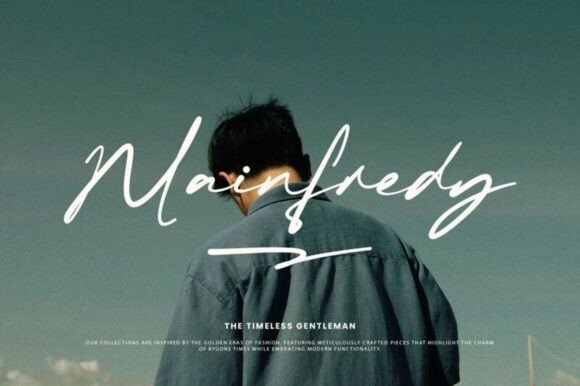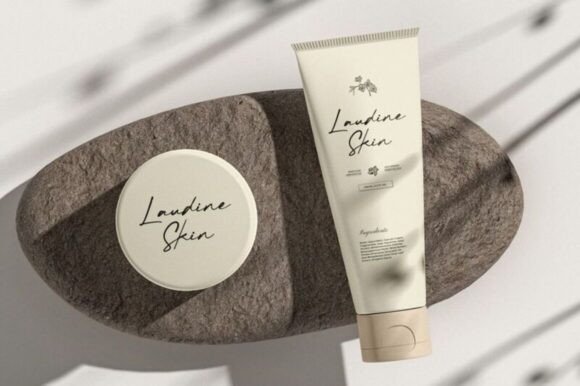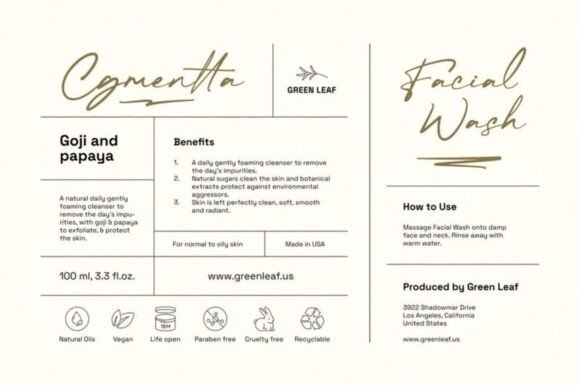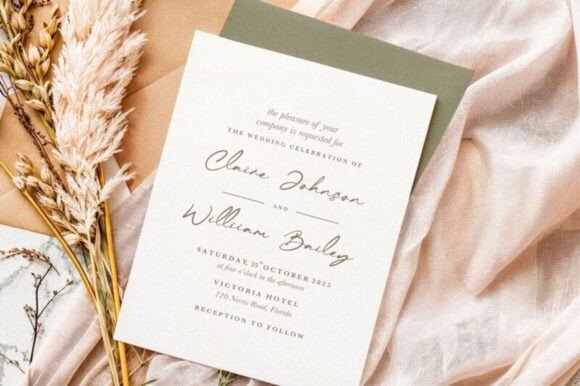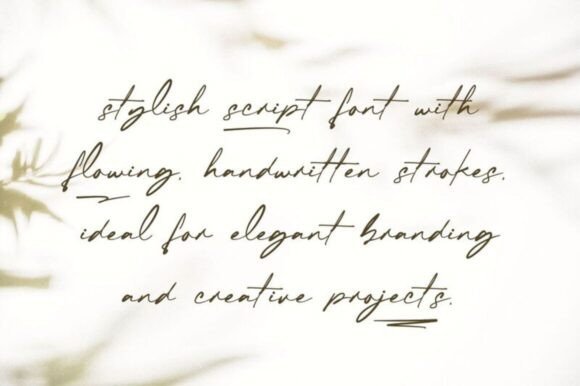
Introducing Checkbold Font: Elevate Your Designs with a Modern Handwritten Style
In the world of typography, fonts play a crucial role in making or breaking a design. A well-chosen font can instantly elevate your brand, product, or website, making it more engaging and memorable for your audience. If you’re on the hunt for a font that exudes modernity, smoothness, and an organic feel, look no further than Checkbold Font. This stunning handwritten font is about to revolutionize the way you approach your designs, offering a versatile and attention-grabbing solution for creatives and businesses alike.
What Makes Checkbold Font Stand Out?
Checkbold Font boasts a smooth, modern, and organic design that is sure to capture everyone’s attention. Its handwritten style gives it a personal and approachable feel, making it perfect for brands and products that want to appear friendly and relatable. Whether you’re working on a logo, brand identity, product packaging, or website design, Checkbold Font is an excellent choice.
One of the standout features of Checkbold Font is its PUA (Private Use Area) encoding. This means that you can easily access all the glyphs and swashes, giving you a wide range of creative possibilities. With PUA encoding, you can unlock the full potential of the font, experimenting with different combinations to create a unique look that sets your design apart.
Endless Design Possibilities with Checkbold Font
The versatility of Checkbold Font is one of its most significant advantages. Its modern and organic design makes it suitable for a wide range of applications, from:
- Logos and Brand Identity: Create a memorable and impactful logo that reflects your brand’s personality and values.
- Product Packaging: Add a touch of elegance and sophistication to your product packaging, making it stand out on store shelves.
- Websites and Blogs: Enhance your website or blog’s typography, making it more engaging and user-friendly.
- Social Media Graphics: Create stunning social media graphics, including posts, stories, and ads, that grab attention and drive engagement.
- Stationery and Print Materials: Elevate your stationery, business cards, brochures, and other print materials with a modern and stylish font.
Why Choose Checkbold Font?
With so many fonts available, why should you choose Checkbold Font for your next design project? Here are just a few compelling reasons:
- Unique and Memorable: Checkbold Font’s modern and organic design ensures that your designs will stand out from the crowd.
- Ease of Use: The font’s PUA encoding makes it easy to access and use a wide range of glyphs and swashes.
- Highly Versatile: Suitable for a wide range of design applications, from logos and branding to websites and social media graphics.
- Modern and Fresh: Checkbold Font’s smooth and handwritten style gives your designs a fresh and contemporary feel.
In conclusion, Checkbold Font is an exceptional choice for designers and crafters looking to elevate their designs with a modern, smooth, and organic handwritten font. Its PUA encoding, versatility, and attention-grabbing style make it an excellent addition to any design project. Whether you’re working on a logo, product packaging, website, or social media graphics, Checkbold Font is sure to make your designs shine. So why wait? Add Checkbold Font to your design arsenal today and discover a world of creative possibilities!
- Smooth, modern, and organic handwritten design
- Highly versatile and suitable for various design applications
- Unique and memorable, perfect for making a lasting impression